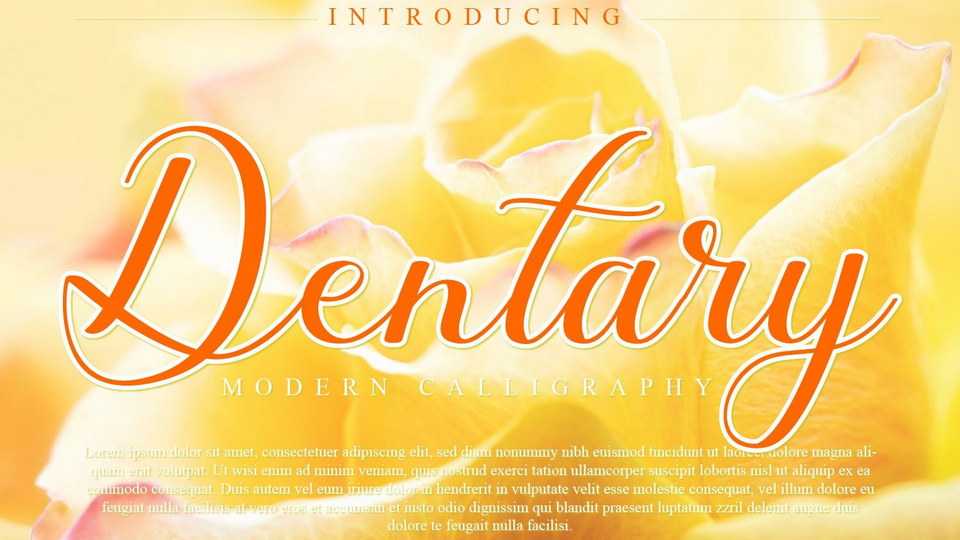
Download Dentary font, a lovely script featuring charming, playful characters that seem to dance along the baseline. Add Dentary to your most creative ideas, and notice how it makes them stand out
Designer: Fiqi Febriyanto